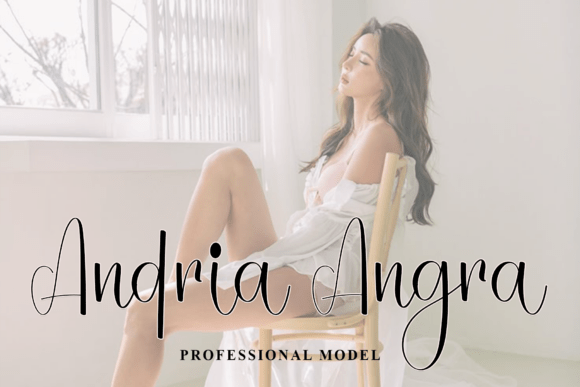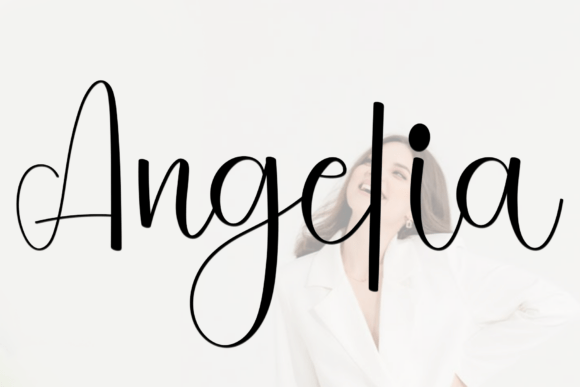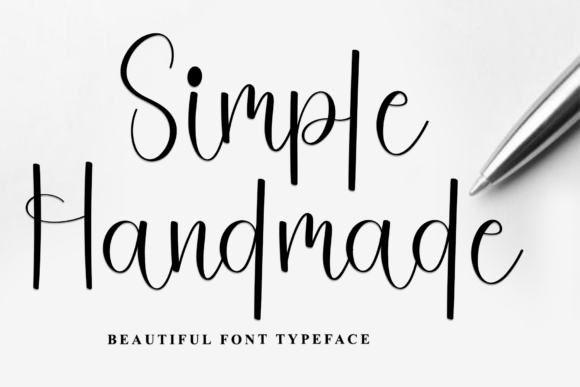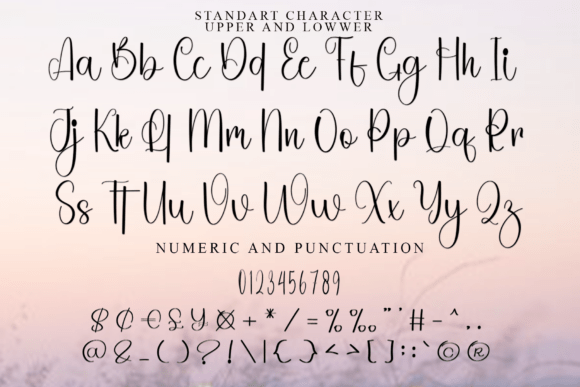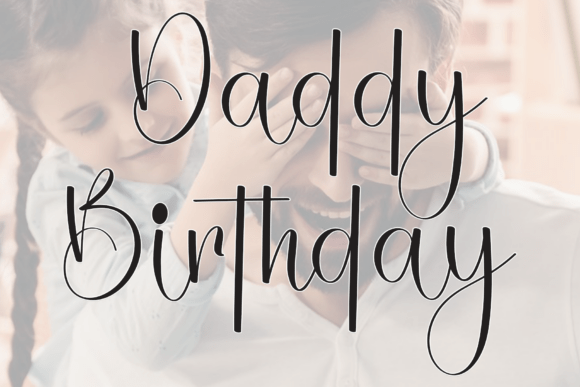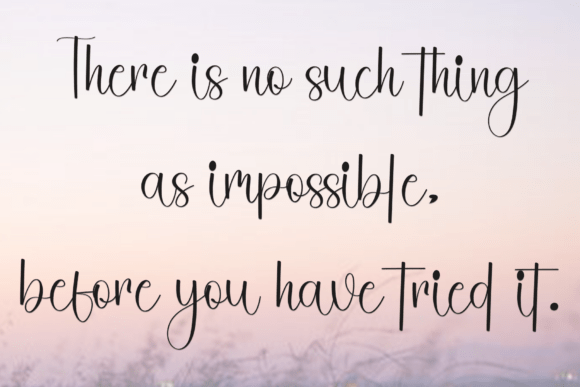
Barbie Autography Font – Free Download
Introduction to Barbie Autography Font
Barbie Autography is a festive and merry typeface that captures the spirit of the holiday season.
Key Features of Barbie Autography Font
Why Choose Barbie Autography Font?